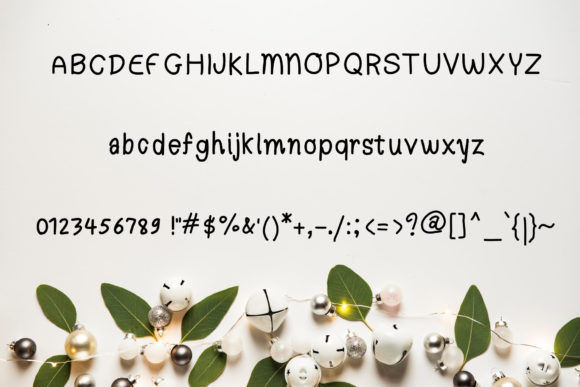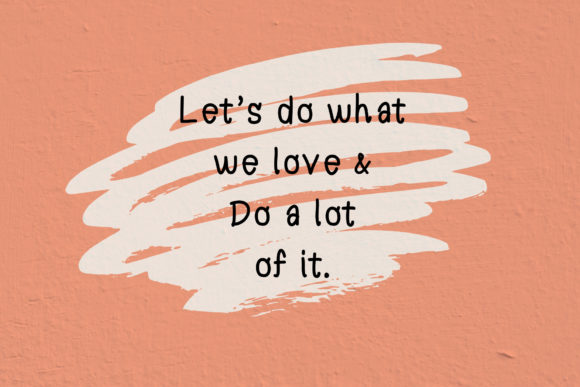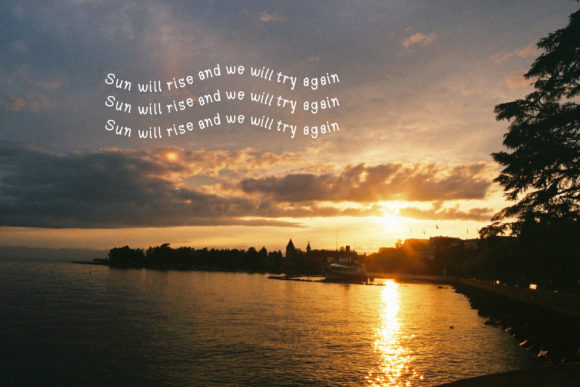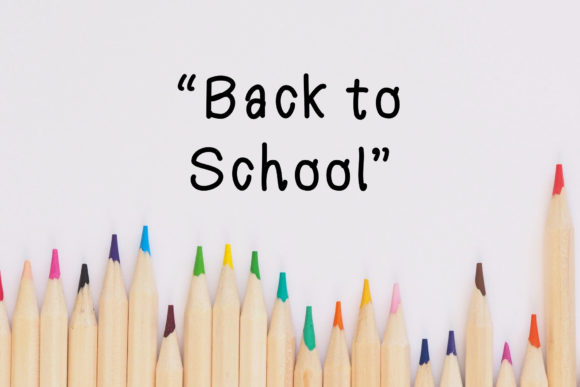
Introducing Happy Dancing Font: Elevate Your Designs with Elegance and Flair
Are you tired of using the same old fonts in your designs? Look no further than Happy Dancing Font, a delicate, elegant, and flowing handwritten font that’s sure to take your creative projects to the next level. With its beautiful and well-balanced characters, Happy Dancing Font is the perfect addition to any designer’s toolkit.
The Characteristics of Happy Dancing Font
Happy Dancing Font is a unique and versatile font that boasts a range of characteristics that make it stand out from the crowd. Its delicate and elegant design makes it perfect for projects that require a touch of sophistication and refinement. The font’s flowing lines and curves create a sense of movement and fluidity, giving it a dynamic and lively feel.
One of the key features of Happy Dancing Font is its beautiful and well-balanced characters. Each letter has been carefully crafted to ensure that it looks great on its own and in combination with other letters. This makes it easy to use in a wide range of designs, from elegant wedding invitations to playful greeting cards.
Why Choose Happy Dancing Font?
- Versatility: Happy Dancing Font is incredibly versatile and can be used in a wide range of designs, from formal to informal, and from digital to print.
- Elegance: The font’s delicate and elegant design makes it perfect for projects that require a touch of sophistication and refinement.
- Readability: Happy Dancing Font is highly readable, even at small sizes, making it perfect for body text and captions.
- Uniqueness: Happy Dancing Font is a unique and distinctive font that will help your designs stand out from the crowd.
How to Use Happy Dancing Font in Your Designs
Happy Dancing Font is easy to use in a wide range of designs. Here are a few ideas to get you started:
- Wedding Invitations: Use Happy Dancing Font to create beautiful and elegant wedding invitations that set the tone for a special day.
- Greeting Cards: Add a touch of personality and whimsy to your greeting cards with Happy Dancing Font.
- Logos: Use Happy Dancing Font to create a unique and memorable logo for your business or brand.
- Social Media Graphics: Add a touch of elegance and sophistication to your social media graphics with Happy Dancing Font.
Tips for Getting the Most Out of Happy Dancing Font
Here are a few tips for getting the most out of Happy Dancing Font:
- Experiment with different sizes: Happy Dancing Font looks great at a range of sizes, from small and delicate to large and bold.
- Play with colors: The font’s elegant design looks great in a range of colors, from classic black and white to bold and bright hues.
- Combine with other fonts: Happy Dancing Font pairs well with a range of other fonts, so don’t be afraid to experiment with different combinations.
In conclusion, Happy Dancing Font is a beautiful and versatile font that’s perfect for designers and crafters who want to add a touch of elegance and sophistication to their designs. With its delicate and flowing design, well-balanced characters, and high readability, Happy Dancing Font is sure to become a favorite in your font collection. So why not give it a try and see how it can elevate your designs to the next level?